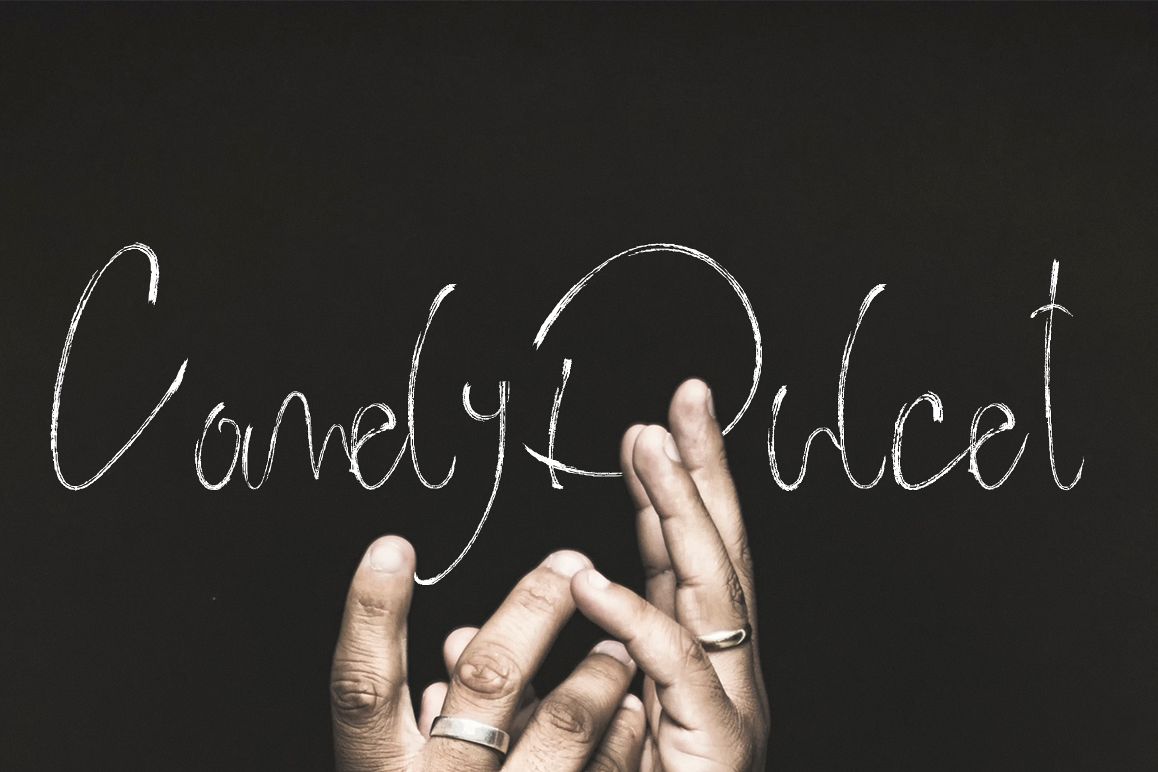
Comely Dulcet Brush Script
Comely Dulcet is a modern Handbrush script cooked to improved your design. this font would help you more in enhancing your design project..
so it's means could to used for more design purposes as needed especially for web and templates design like logos, wedding invitation, heading, t-shirt, letterhead, signage, lable, news, posters, badges etc.
Comely Dulcet completed with the huge of alternates for lowercases to enhance your design project.Comely Dulcet also completed with discretionery ligatures also multiple language supports.
Every lowercases made not less for 5 glyphs for every single ones, and not less for 10 glyphs for a, i, u, e, o letters